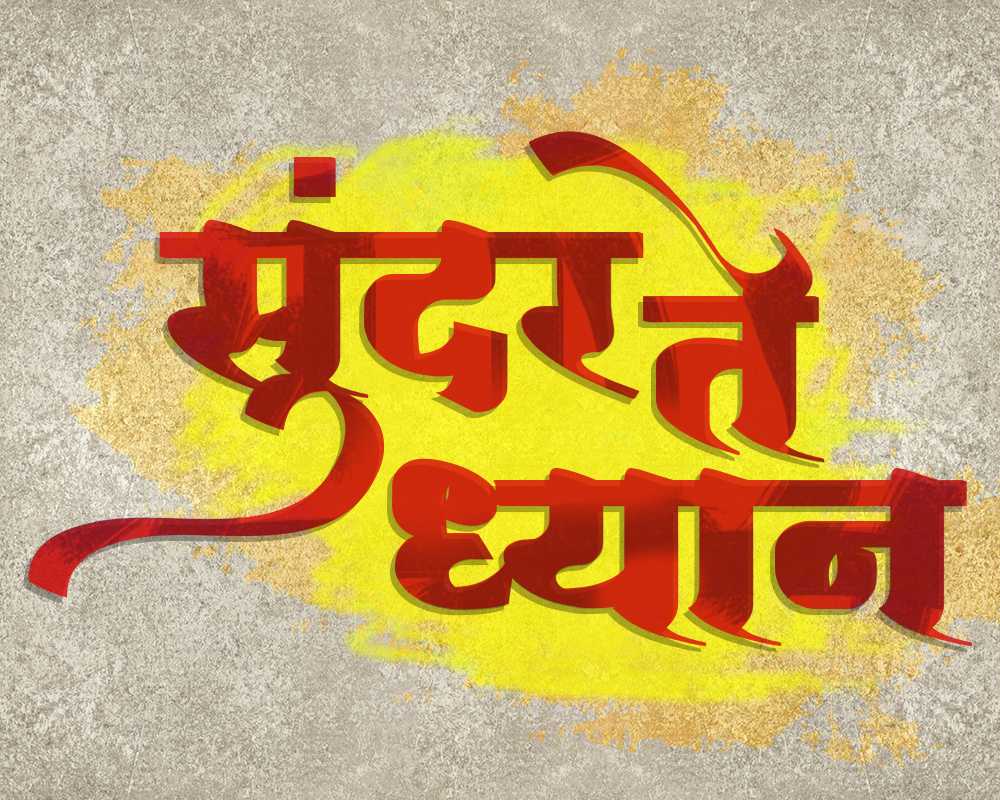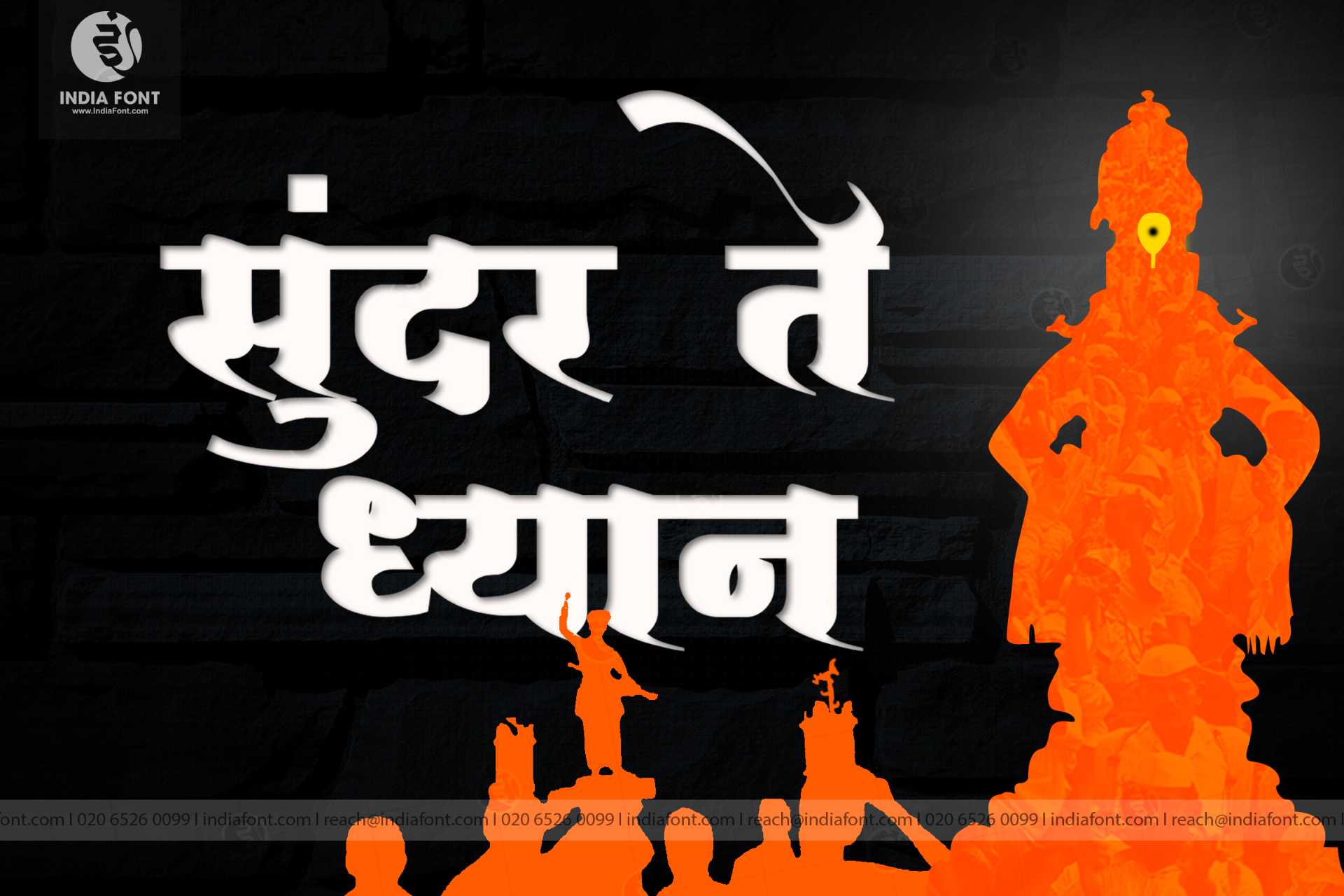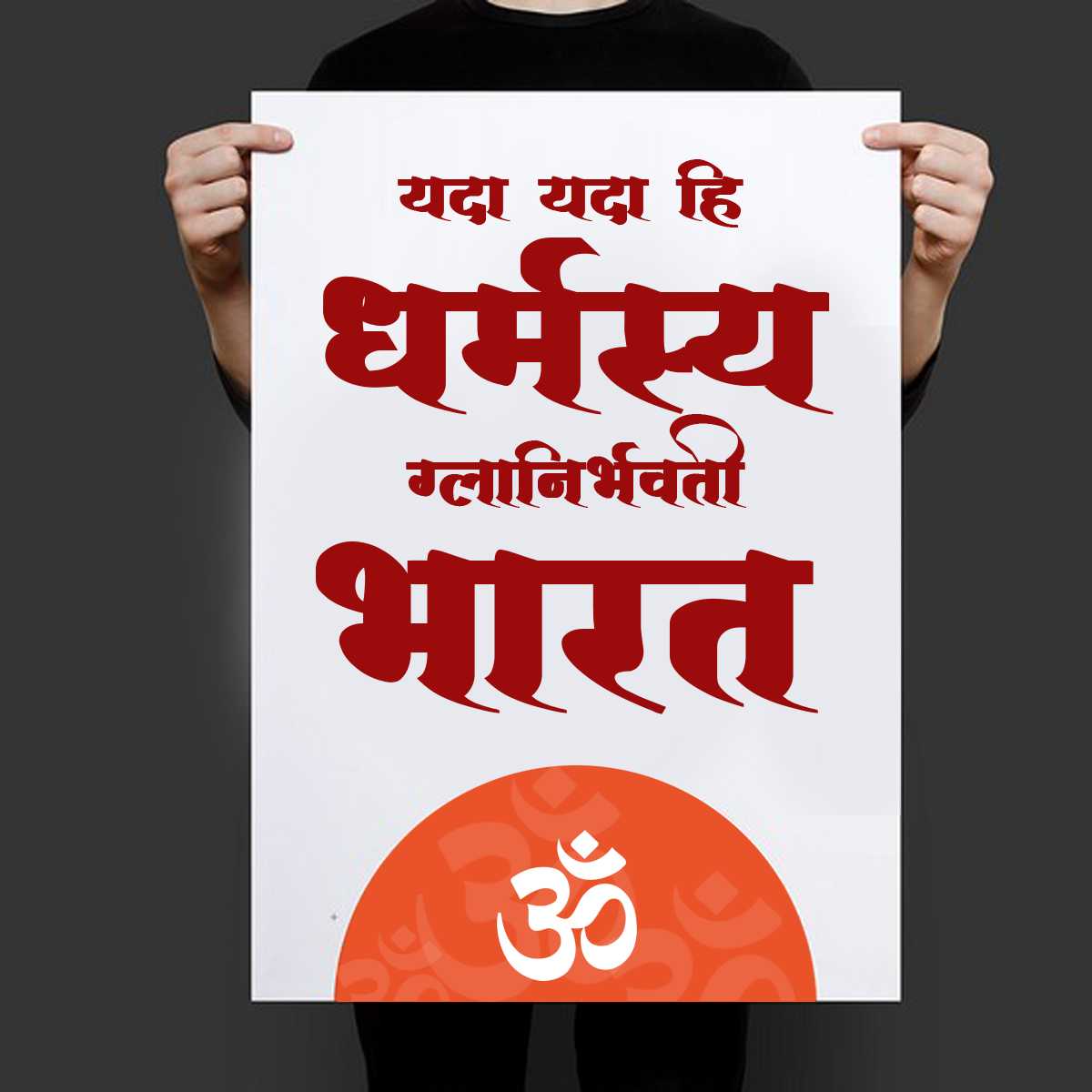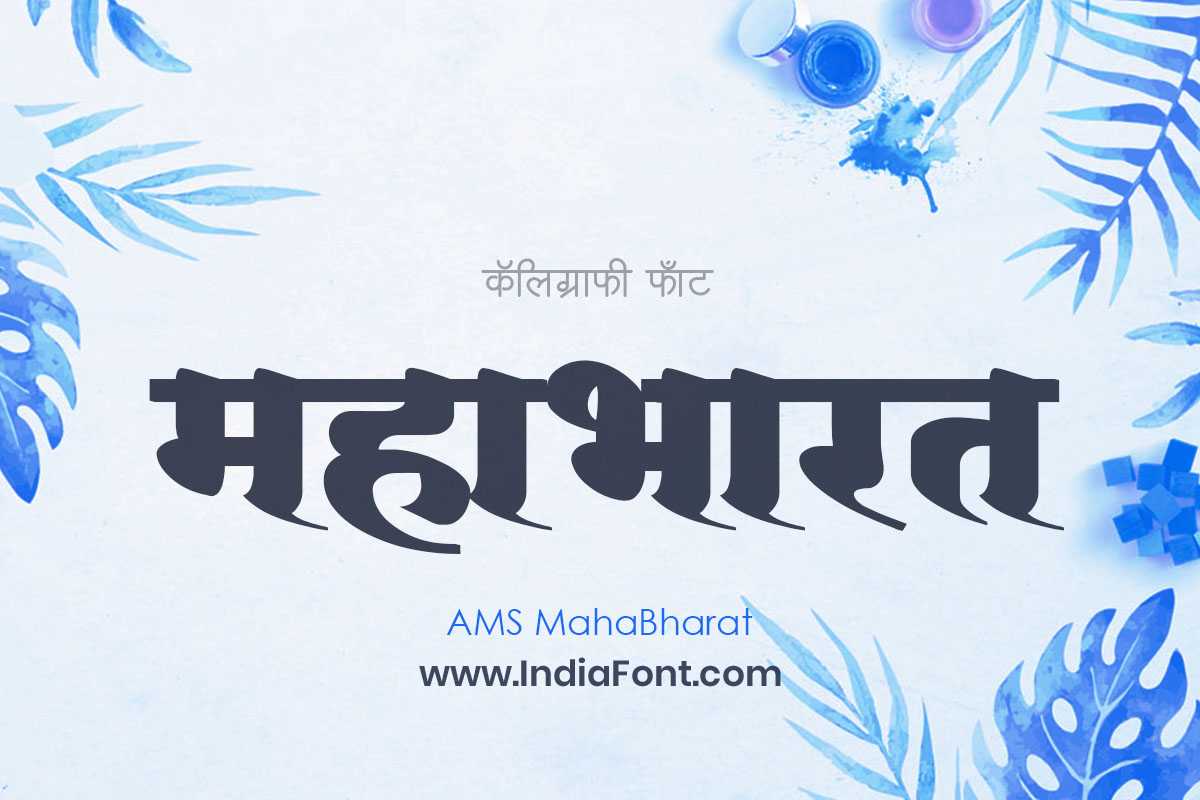
AMS Mahabharat
AMS MahaBharat font free download: Embark on an epic journey with AMS MahaBharat, a calligraphy font that captures the grandeur and drama of ancient tales. Whether you're seeking free AMS fonts, exploring AMS MahaBharat font download options, or looking for AMS calligraphy fonts, AMS MahaBharat adds a touch of mythic beauty to your designs.
About AMS Mahabharat Font
AMS MahaBharat font free download: Embark on an epic journey with AMS MahaBharat, a calligraphy font that captures the grandeur and drama of ancient tales. Whether you're seeking free AMS fonts, exploring AMS MahaBharat font download options, or looking for AMS calligraphy fonts, AMS MahaBharat adds a touch of mythic beauty to your designs. This calligraphy font combines elegance with functionality, making it perfect for various design applications.
AMS Mahabharat is a professionally crafted calligraphy typeface that brings clarity and style to your projects. Designed with attention to detail, it supports hindi and marathi characters flawlessly.
Whether you're working on wedding-materials, invitations, headers-titles, or other creative projects, AMS Mahabharat delivers consistent performance across both digital and print media. This carefully designed typeface ensures readability and visual appeal in all your design work.
AMS Mahabharat excels in various design scenarios. Here are the most suitable applications:
About AMS Mahabharat Typography Style
AMS Mahabharat is a professionally crafted calligraphy font that exemplifies modern Hindi typography design. This free font is perfect for designers seeking professional branding and logo design projects.
Available in 1 weight and supporting hindi, marathi scripts, AMS Mahabharat offers exceptional versatility for both digital and print media. Whether you're working on wedding-materials, invitations, headers-titles, this carefully designed typeface ensures consistent quality and professional results across all your typography projects.